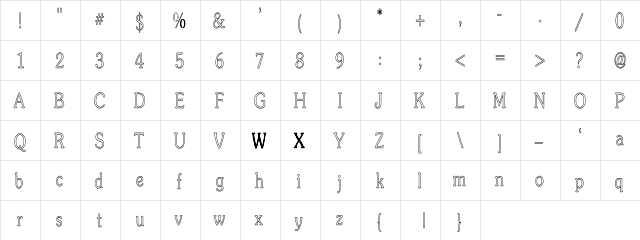
Souvenir-LightHC Regular
Design Context for Souvenir-LightHC Typeface
Souvenir-LightHC takes a measured approach to typography — its balanced proportions and neutral character make it a reliable workhorse for both digital and print work. The delicate stroke weight brings airiness and refinement to layouts.